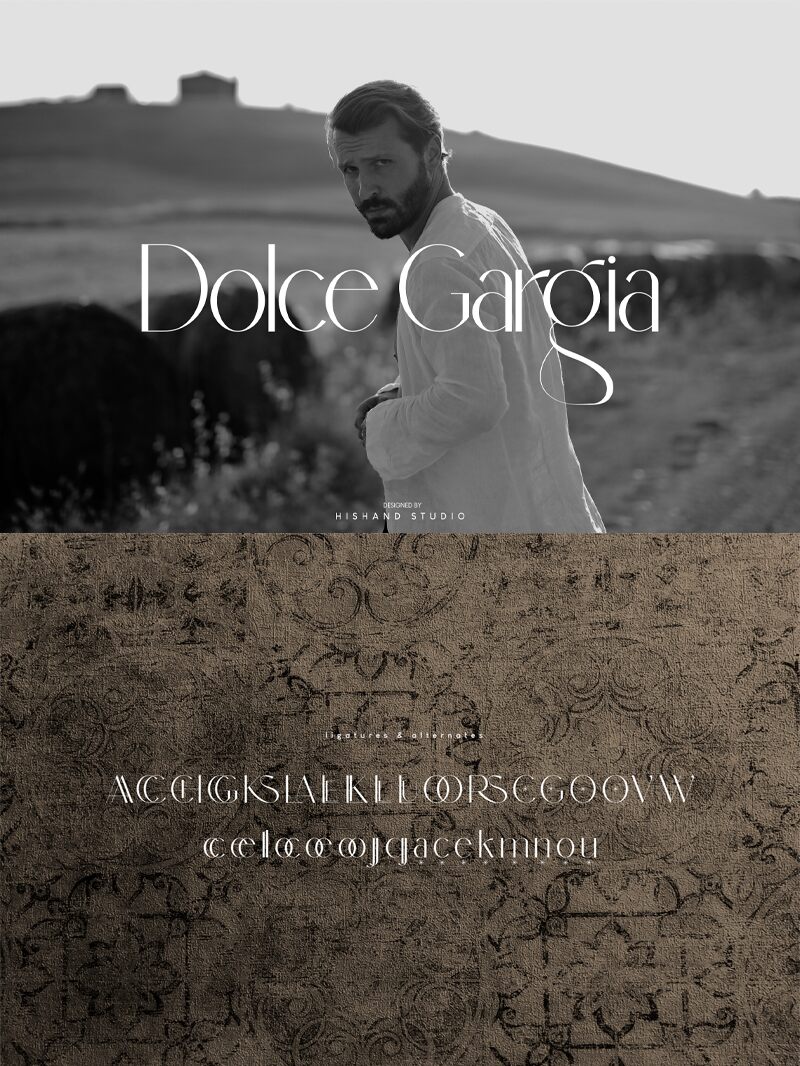
Dolce Gargia, a captivating sans serif font by Hishand Studio, exudes an elegant and refined charm. With its light weight, this font effortlessly adds a touch of sophistication to any project.
Ideal for creating modern logos, classy invitations, or stylish editorial designs, Dolce Gargia elevates your visual content with its clean lines and contemporary aesthetic. Whether you're designing for fashion brands or luxury resorts, this versatile font typeface promises to deliver a distinctive and polished look.
Let Dolce Gargia take center stage in your next creative endeavor and make a lasting impression.
Dolce Gargia